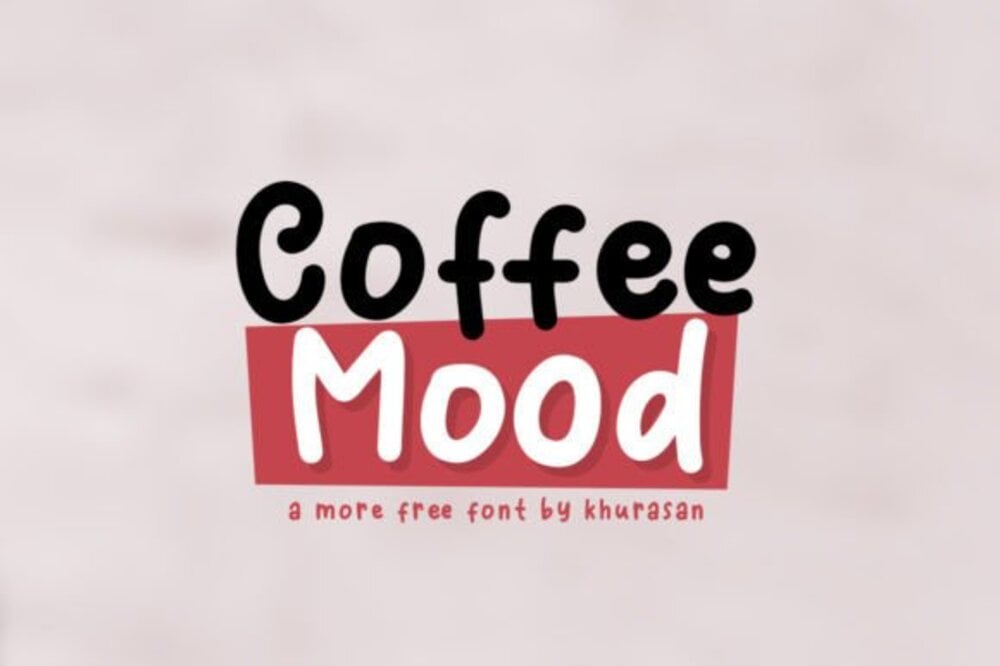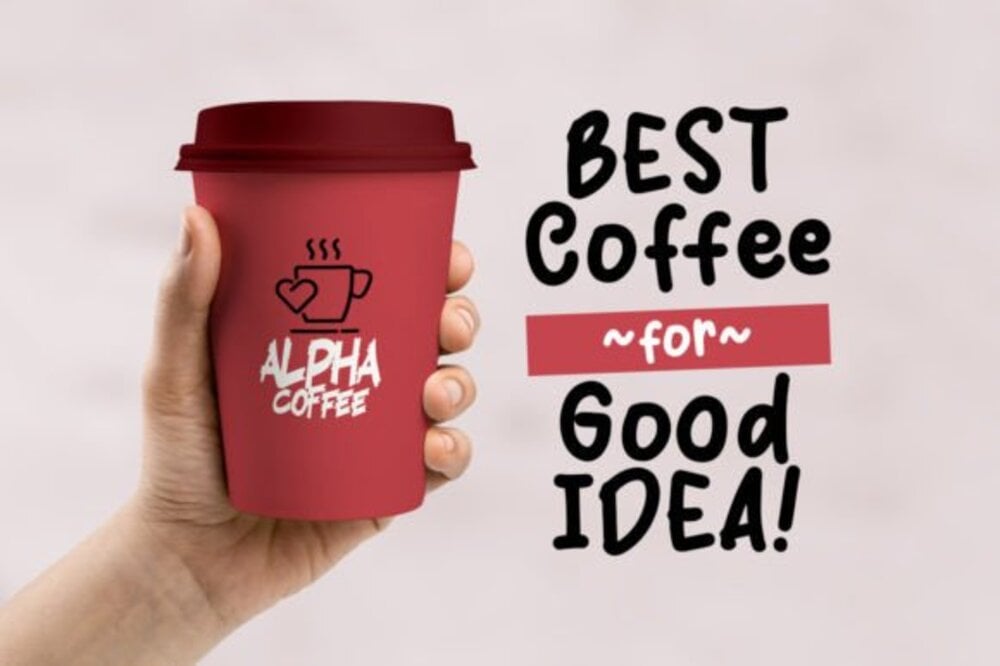
Coffee Mood Font
Coffee Mood is a warm and inviting handwritten font that captures the cozy essence of a coffeehouse atmosphere. With its smooth, flowing strokes and casual charm, it’s perfect for branding, café menus, product packaging, and social media posts. Coffee Mood adds a touch of comfort and personality to your designs, making them feel approachable and effortlessly stylish.